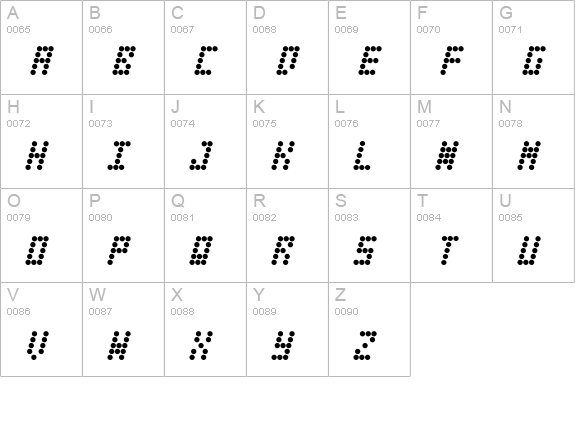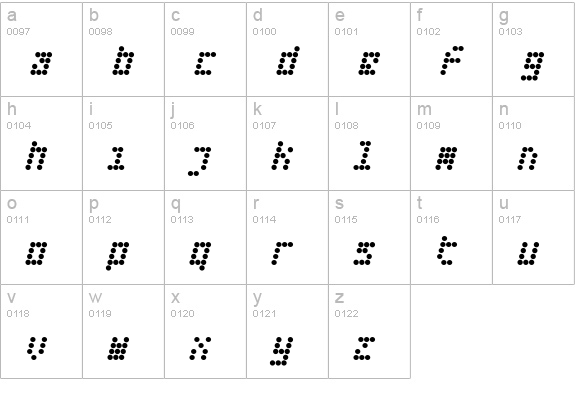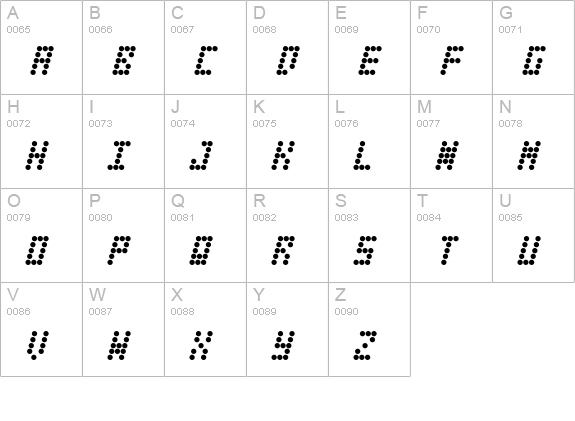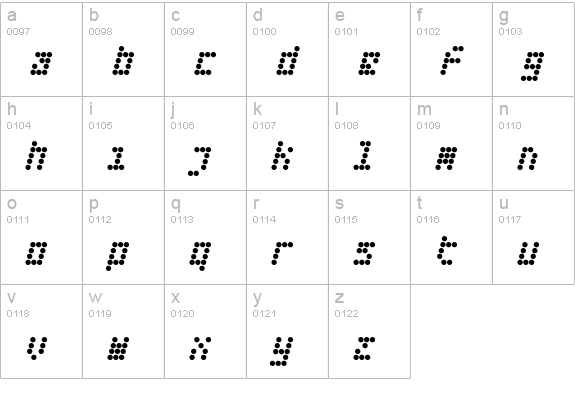
Fifteen Okay Slanted Font Details
Fifteen Okay Slanted font is a modern and stylish typeface that exudes sophistication and elegance. With its sleek lines and unique slanted design, this font is perfect for projects that require a contemporary touch. Whether you're working on a website, logo, or graphic design, Fifteen Okay Slanted will give your work a polished and professional look. The best part? This font is available for free download at FontsMarket.com. Simply head to the website and grab your copy to elevate your projects with the sleek and stylish Fifteen Okay Slanted font. With its versatility and modern appeal, this font is sure to become a staple in your design toolkit.